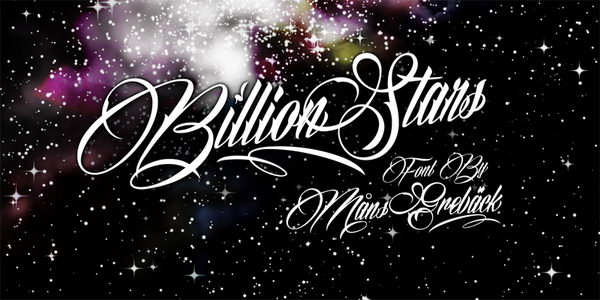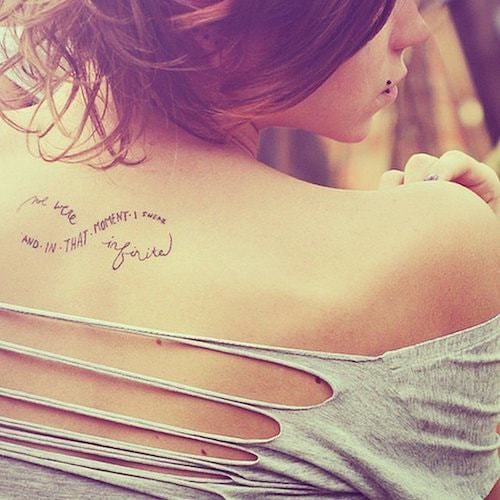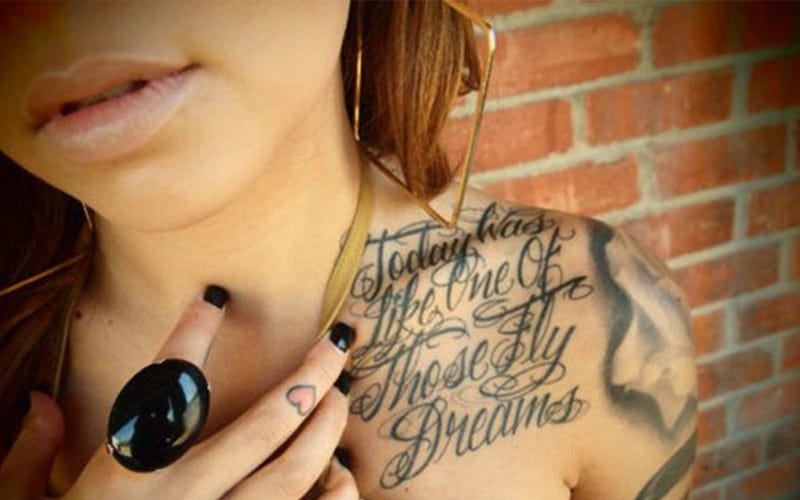
This cursive font for script tattoo is a simple cursive style of writing that looks great when inked onto skin. Ellida Bold Font by Wiescher Design Tattoo fonts cursive.
Masculine Cursive Tattoo Fonts Novocom Top
Lettering tattoo fonts cursive. Click to find the best 79 free fonts in the Fancy Cursive Tattoo style. Tattoo writing fonts are big business and theres a font available for nearly every personality out there. Cursive fonts mimic the style of human penmanship where the letters flow together.
Every font is free to download. Cursive tattoo fonts which are custom designed by the many tattoo artists across the globe require a lot of artistic talent and personal creativity. The tattoo scene is popular in all kinds of hardcore venues.
The cursive handwriting style is functional and intended to be used for everyday writing. Click to find the best 138 free fonts in the Tattoo Lettering style. See more ideas about graffiti lettering fonts tattoo fonts cursive tattoo lettering fonts.
Simply put nothing says FEMALE more than a beautifully designed cursive font. Find and download the right font for your next tattoo. Cursive tattoo fonts which are custom designed by the many tattoo artists across the globe require a lot of artistic talent and personal creativity.
Letters may be joined or unjoined. See more ideas about calligraphy alphabet calligraphy handwriting lettering alphabet. Cursive tattoo fonts which are custom designed by the many tattoo artists across the globe require a.